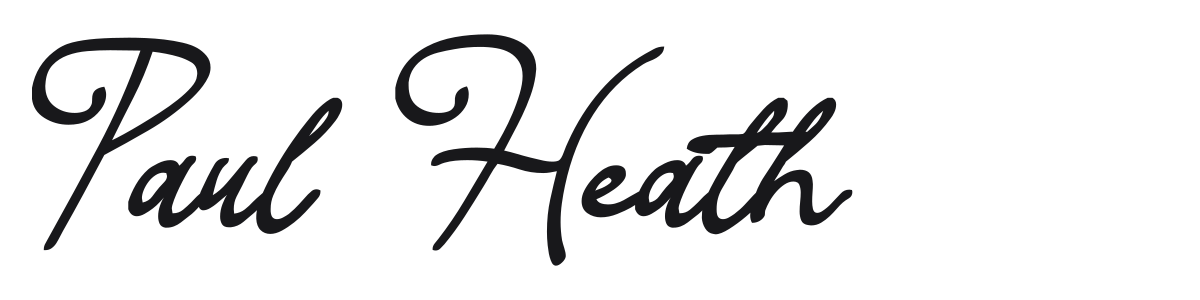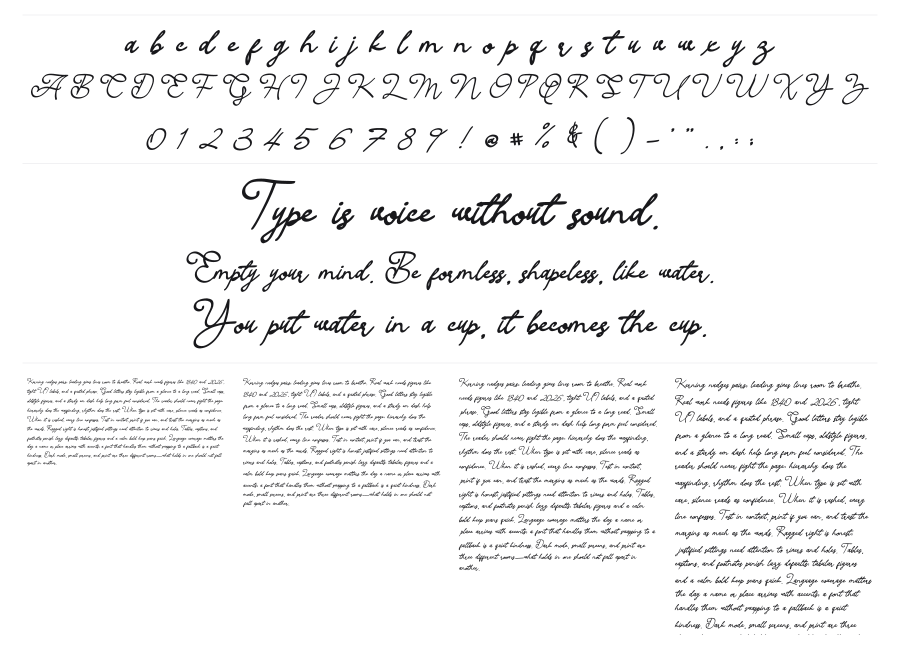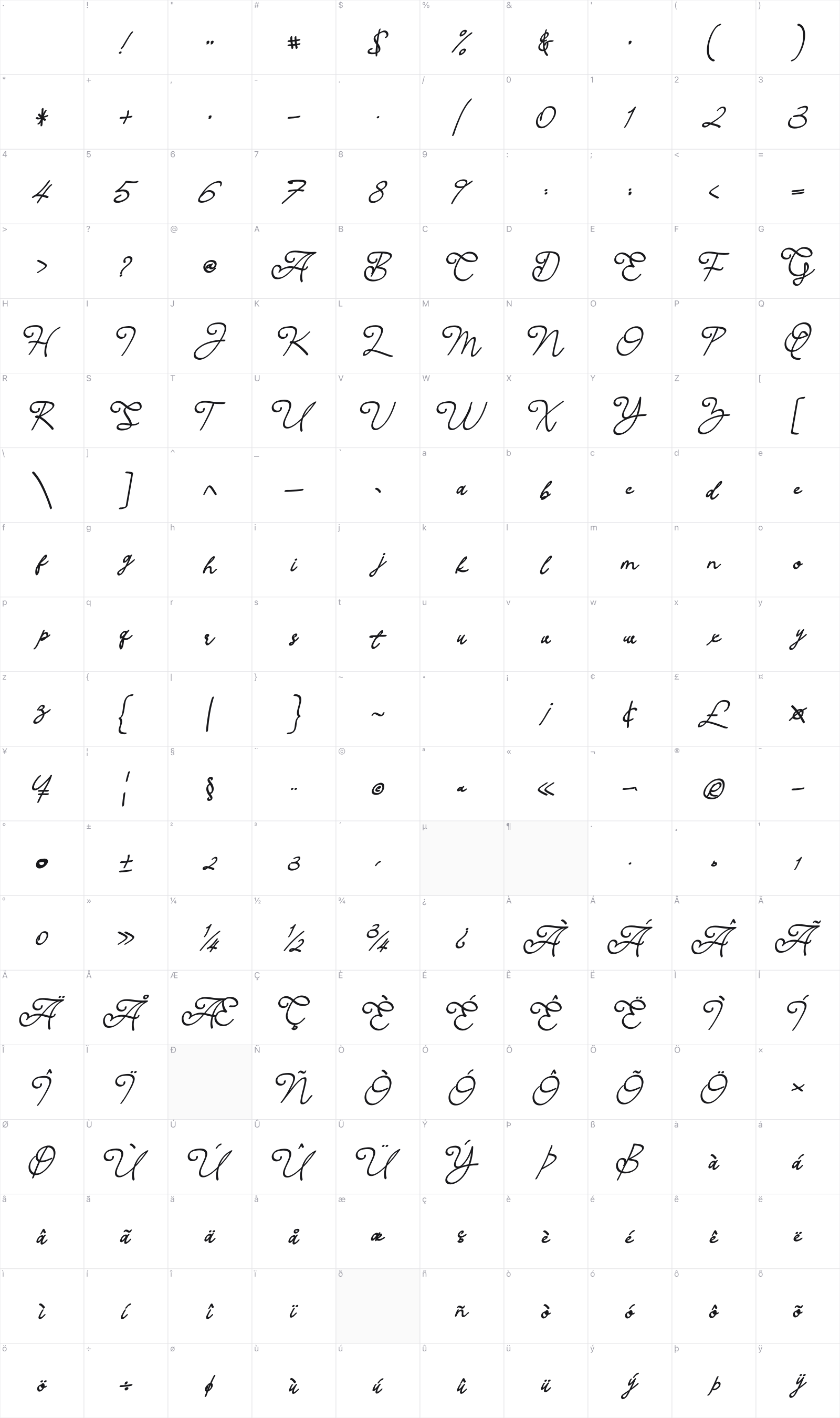
Paul Heath
Paul Heath is a casual connected script with the loose, natural flow of genuine handwriting. Looping ascenders and smooth ligature connections give it an organic authenticity that separates it from overly polished brush scripts. It works well at headline and logo sizes where personality matters.